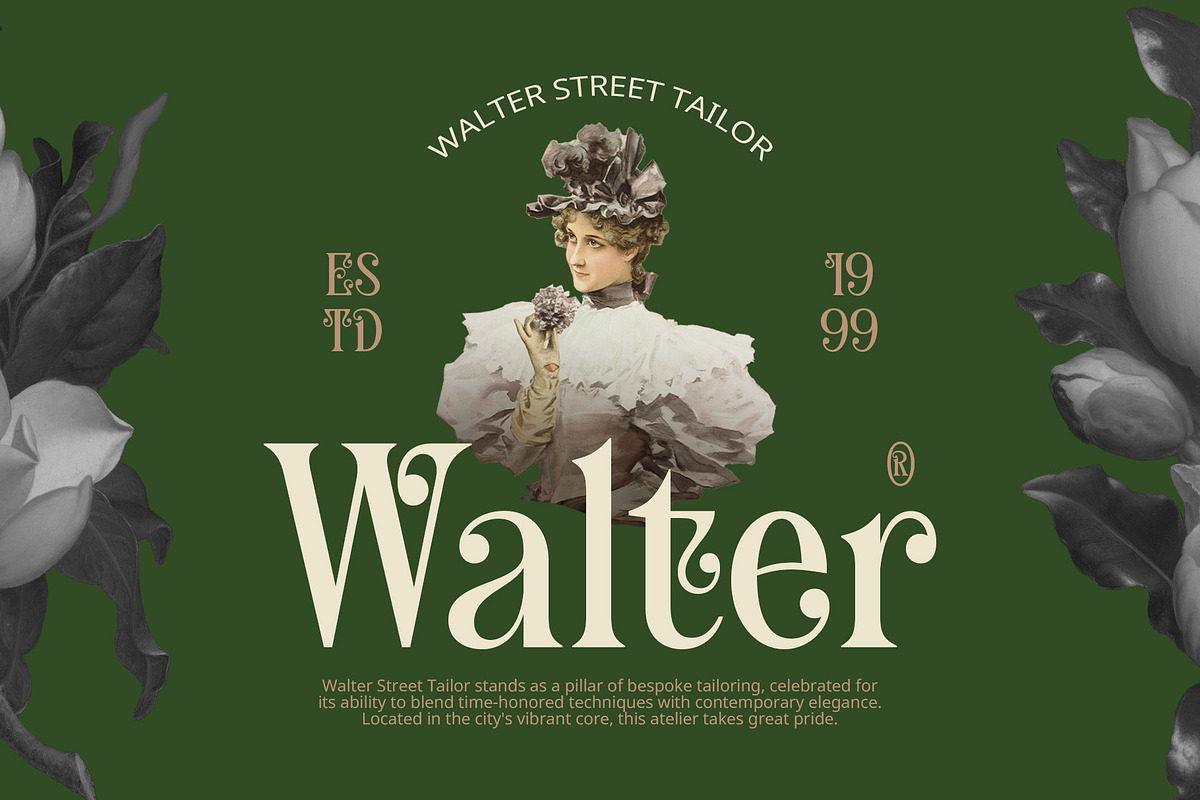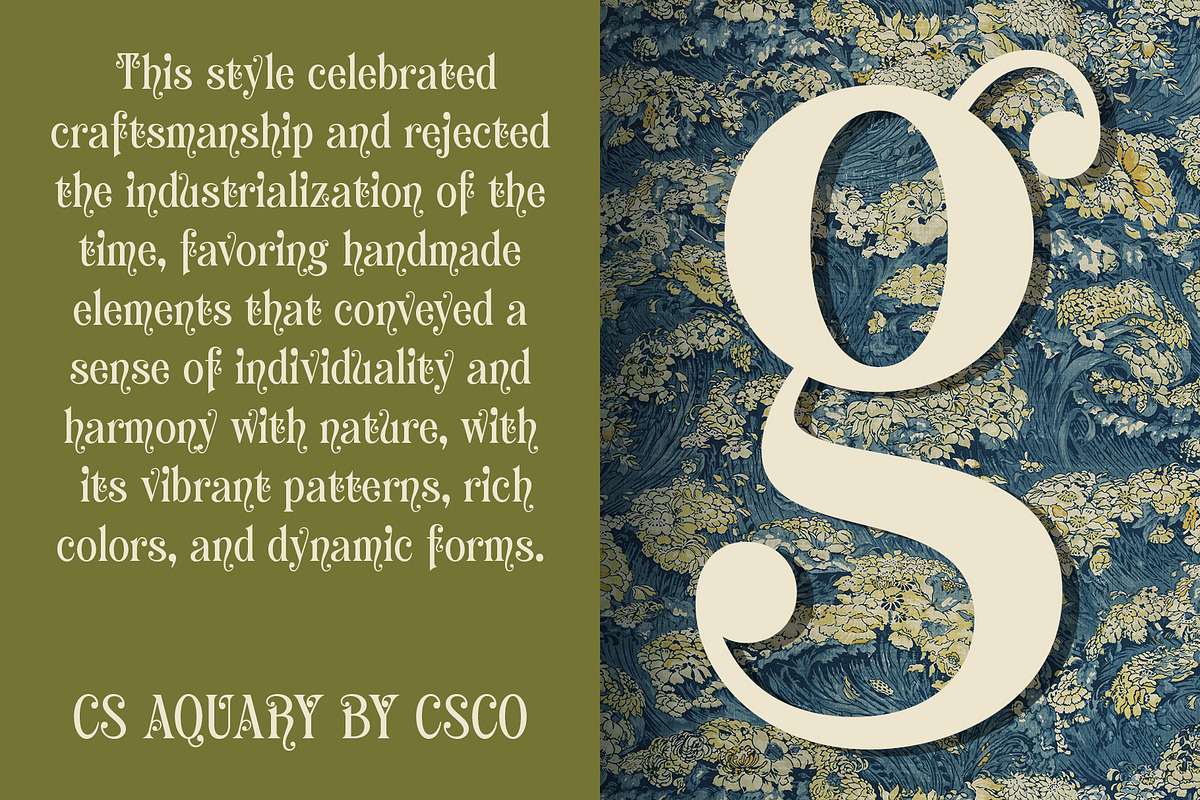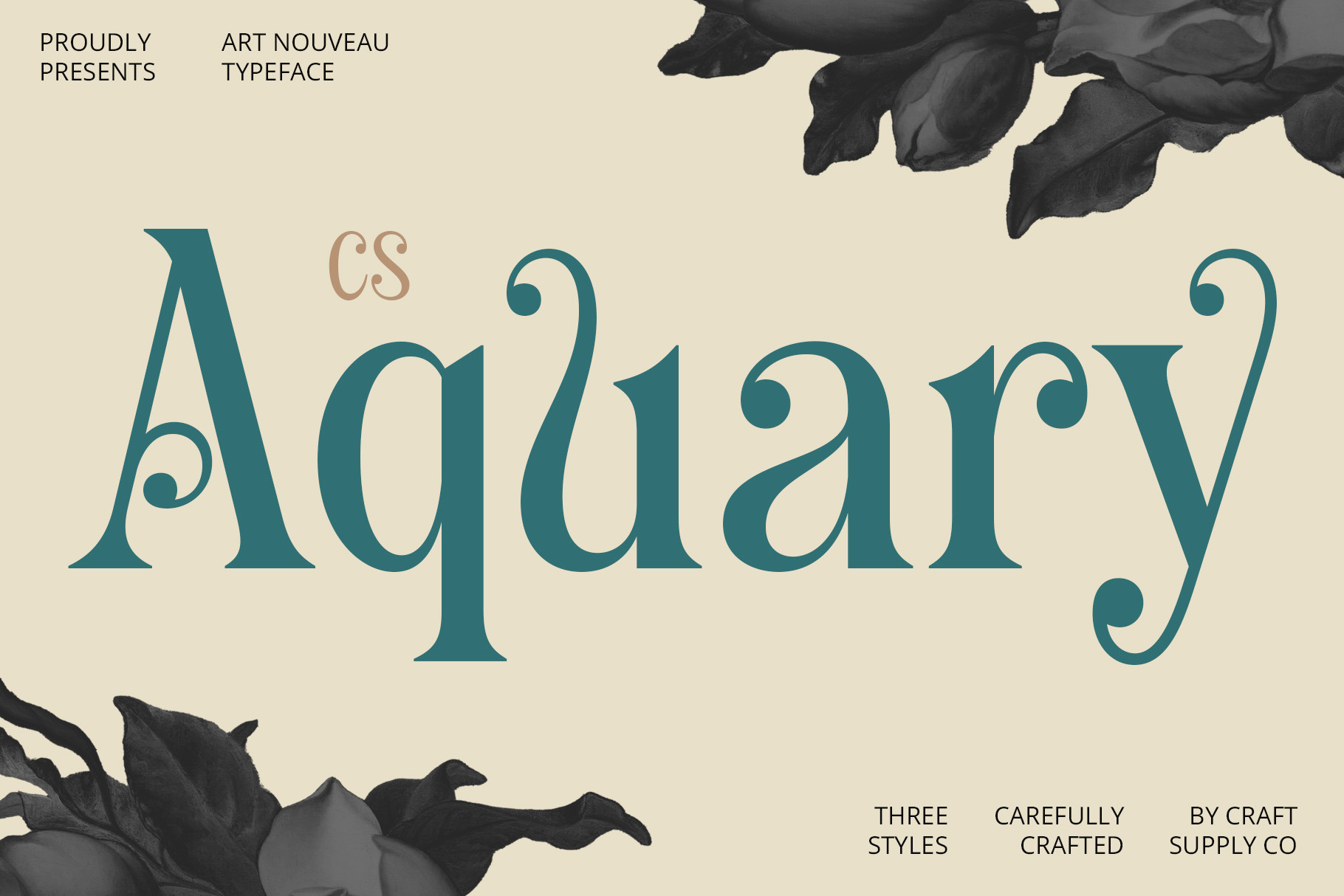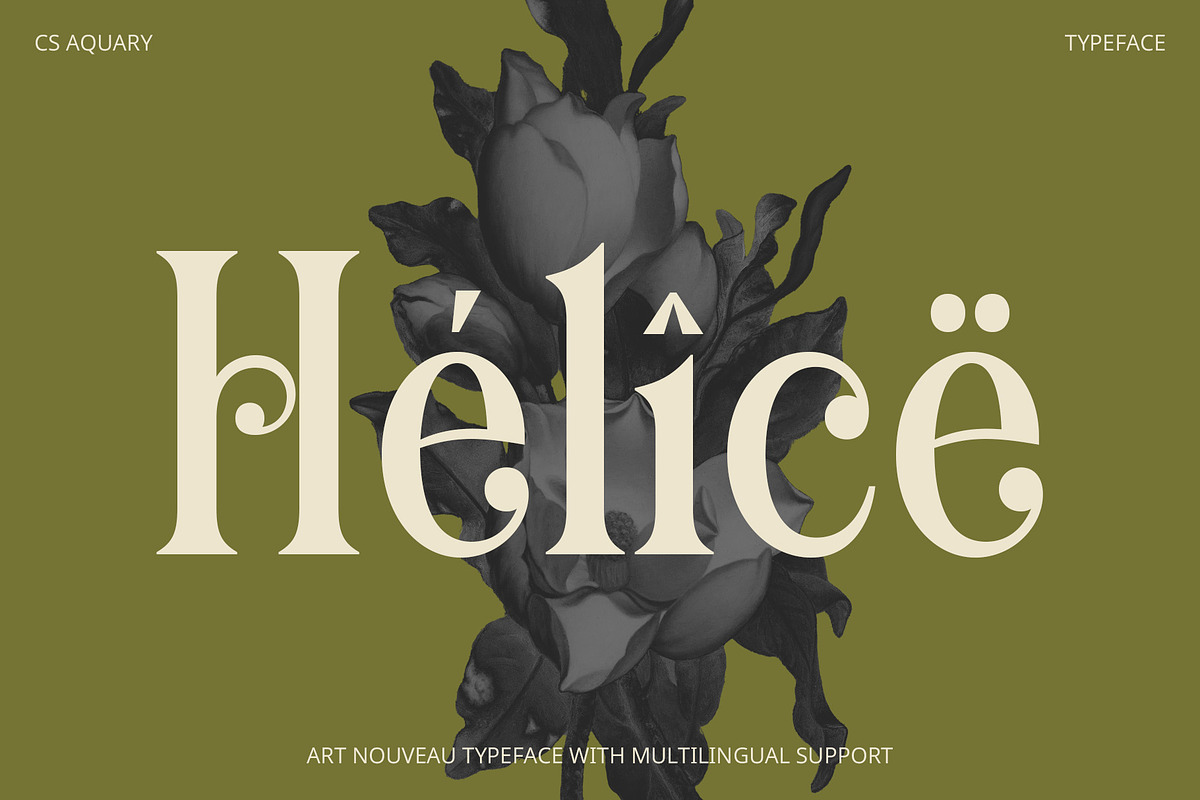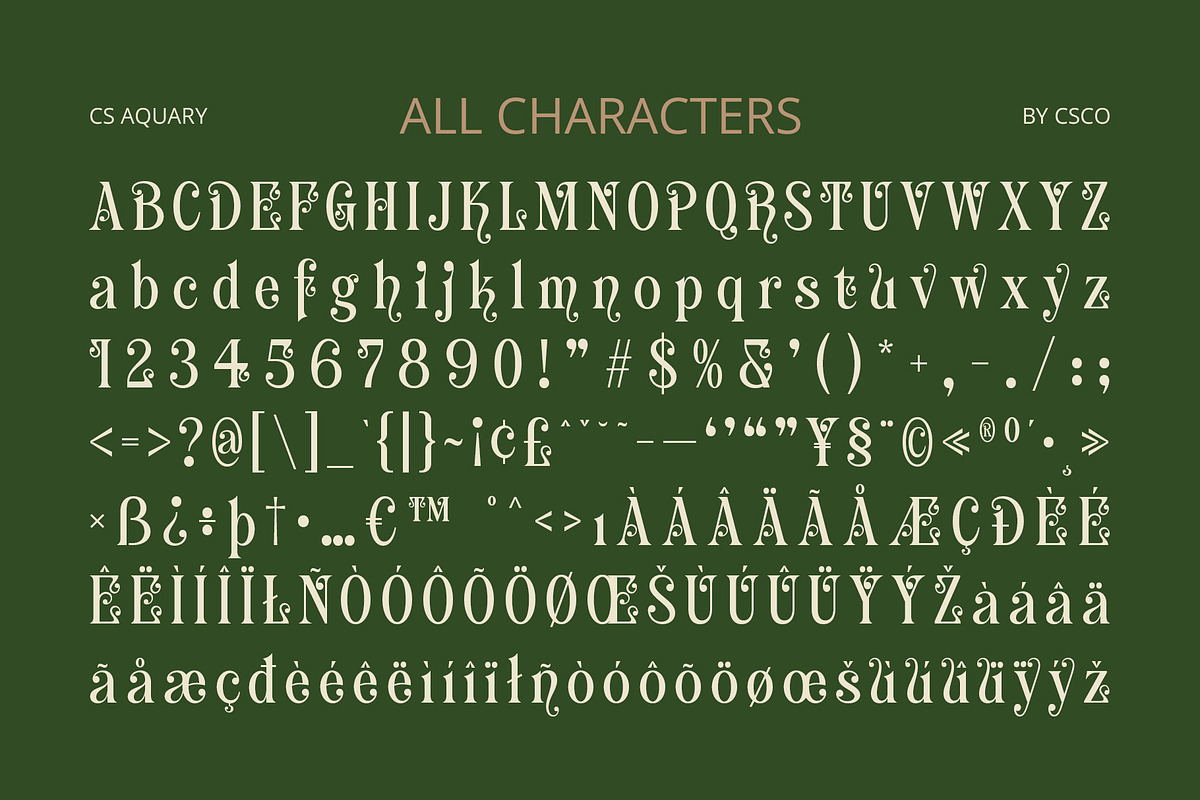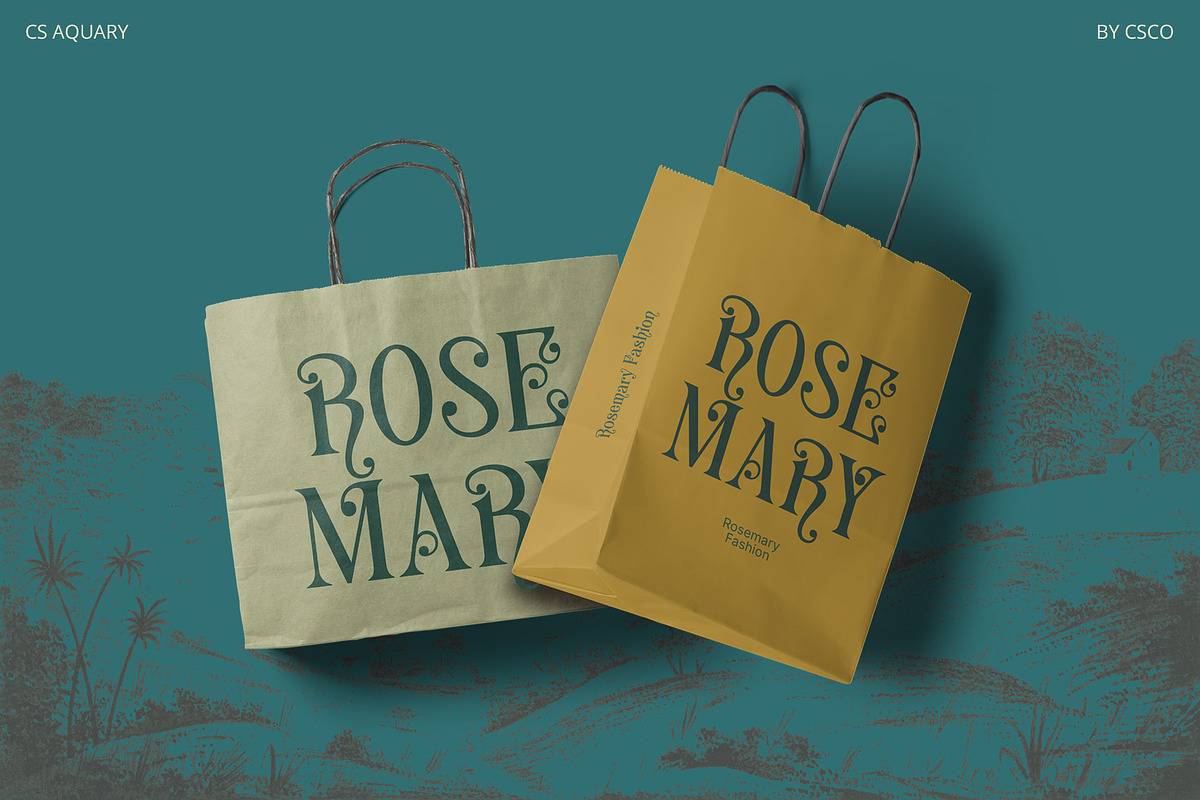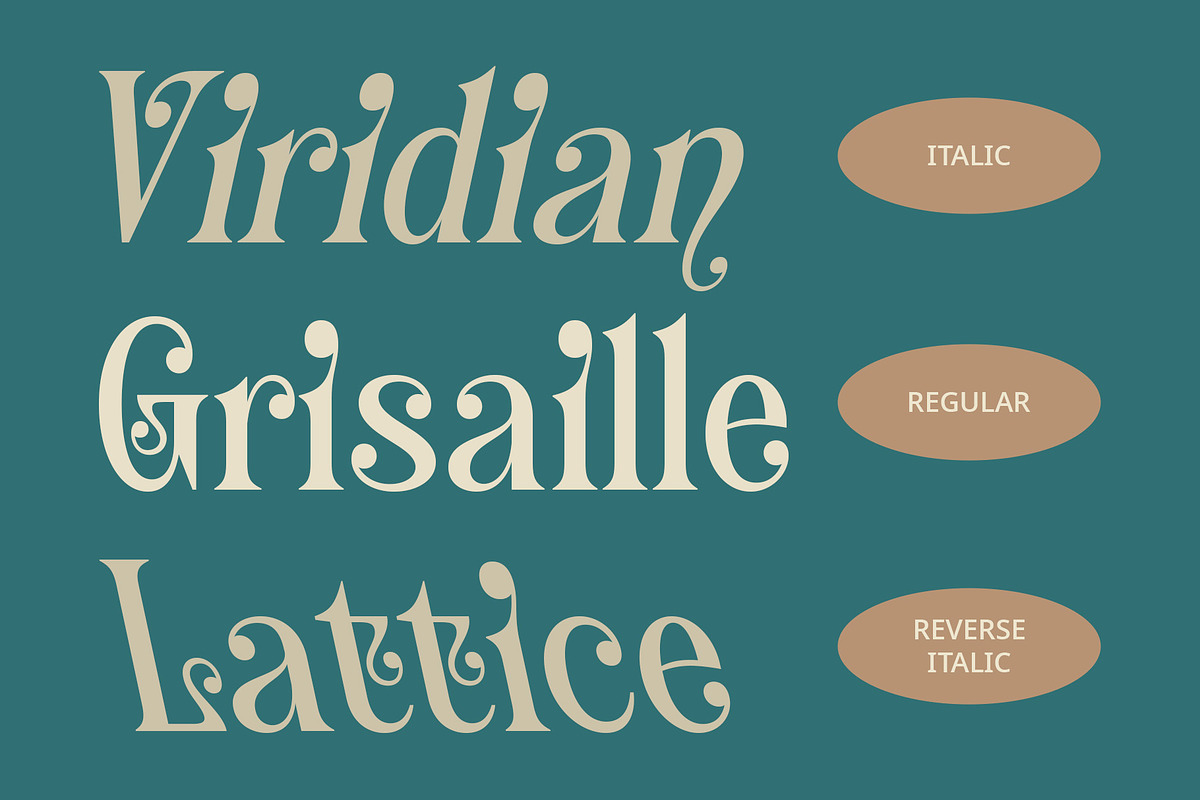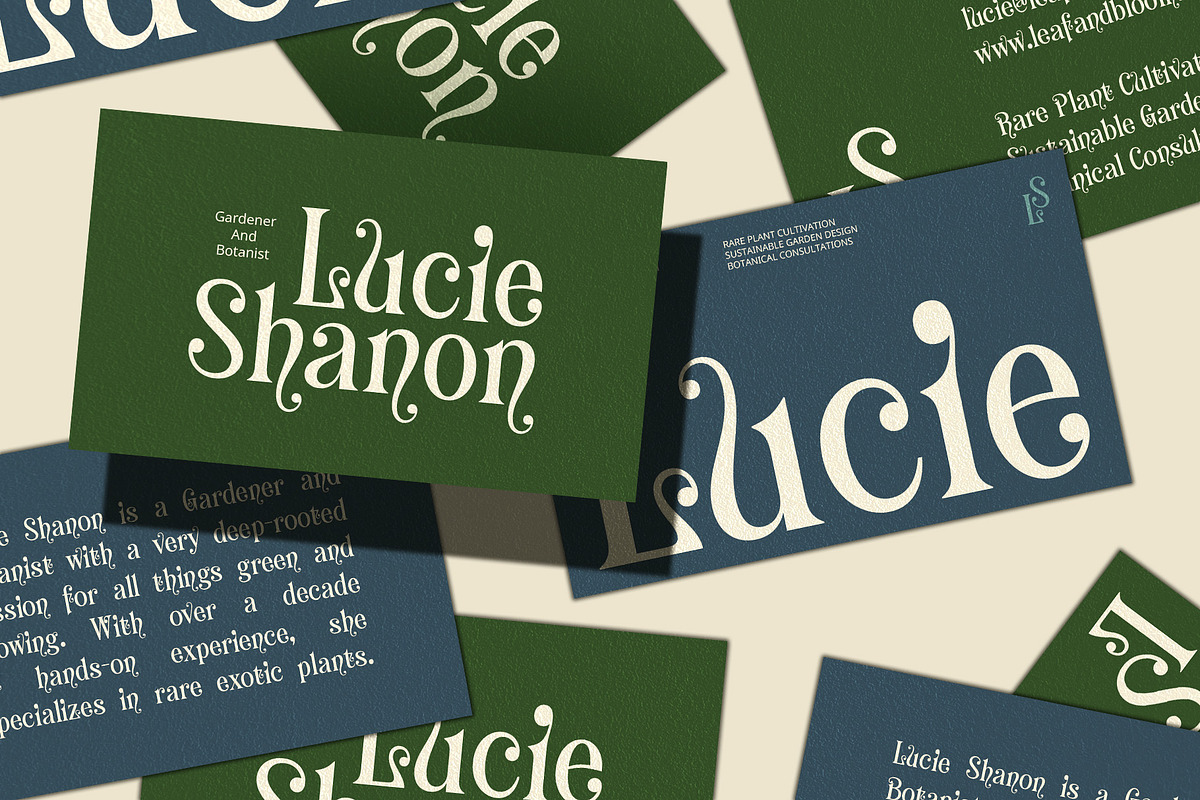
CS Aquary – Fantasy Font
CS Aquary Font: Fantasy Display Serif Font
Elaborate and Whimsical Design CS Aquary is a fantasy display serif font that brings a sense of enchantment and elegance to your designs. Its elaborate, whimsical design features intricate curves and fantastical motifs, blending creativity with sophistication. The ornate detailing in each character creates a magical and imaginative appearance, making it perfect for projects that need a standout, fairy-tale quality.
Intricate Curves and Fantastical Motifs The font’s intricate curves and decorative elements evoke a world of fantasy and wonder. CS Aquary’s unique letterforms are crafted to captivate and inspire, offering a blend of creativity and elegance. Whether it’s for book covers, film posters, or distinctive branding, the font’s elaborate design ensures a memorable and enchanting visual experience.
Ideal for Magical and Creative Projects CS Aquary is ideal for any project requiring a touch of magic and imagination. Its fantasy-inspired design makes it perfect for creating standout visuals in book covers, movie posters, and creative branding. With its blend of ornate detail and whimsical charm, CS Aquary adds a distinctive and magical touch to any design, ensuring it stands out with elegance and creativity.
- CS Aquary Regular
- CS Aquary Italic
- CS Aquary Reverse Italic